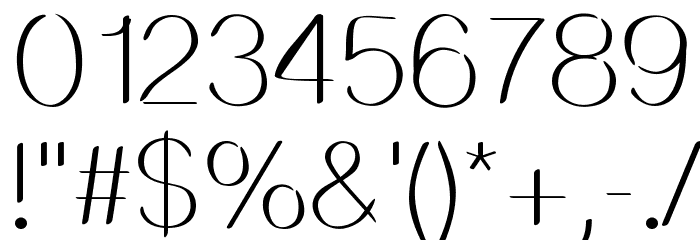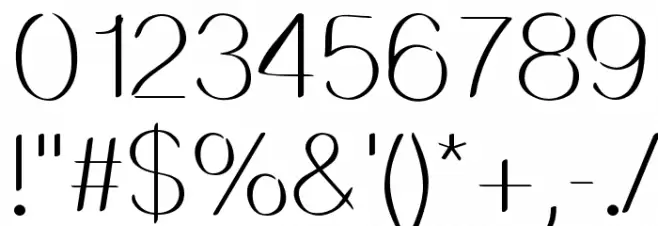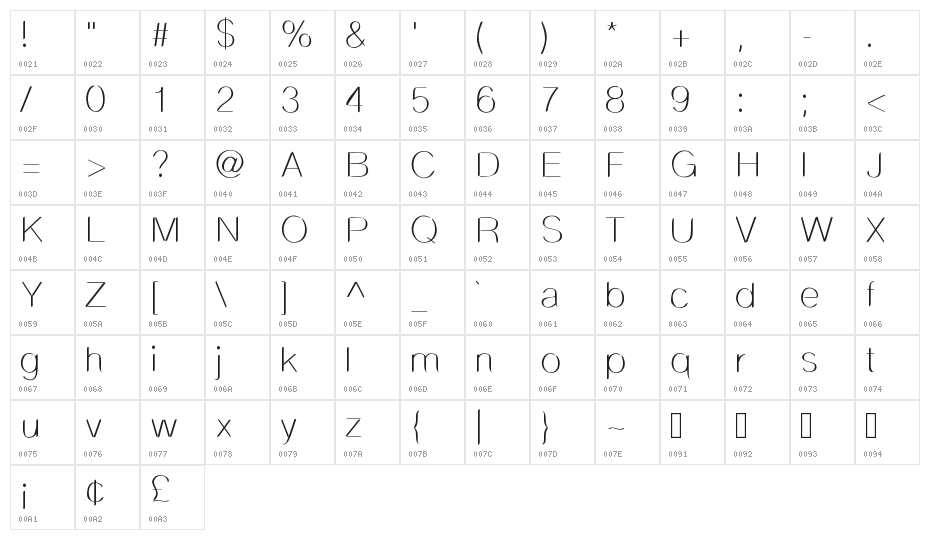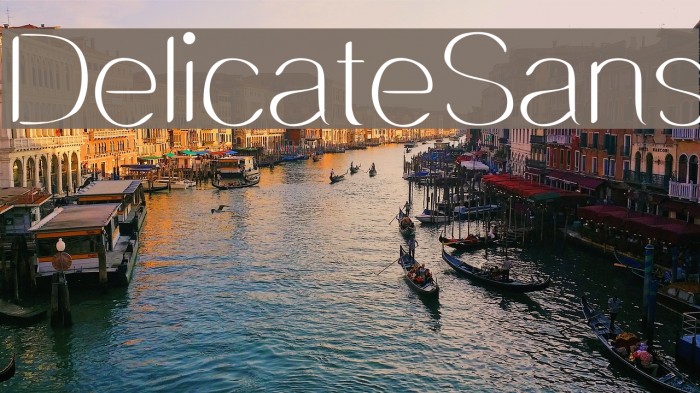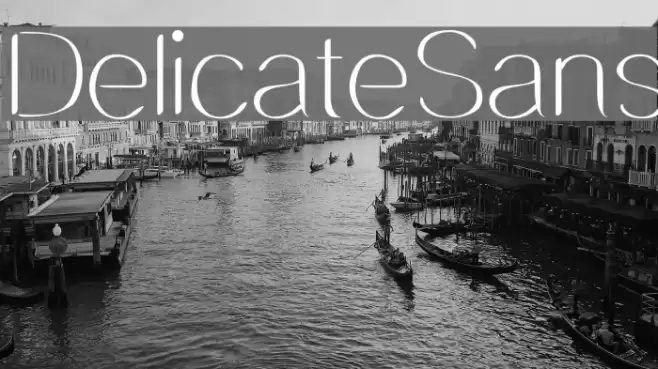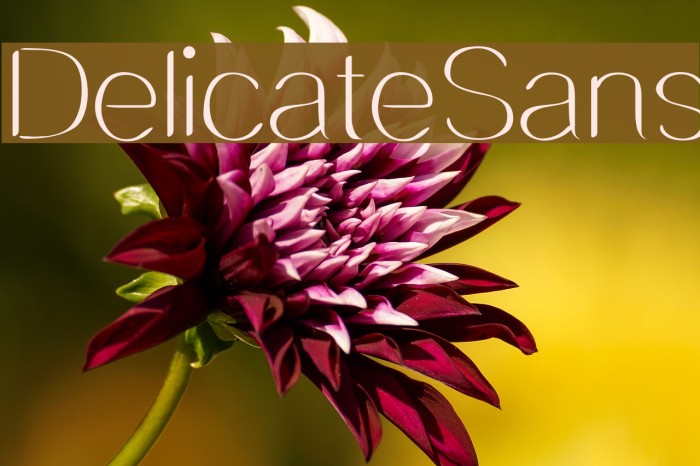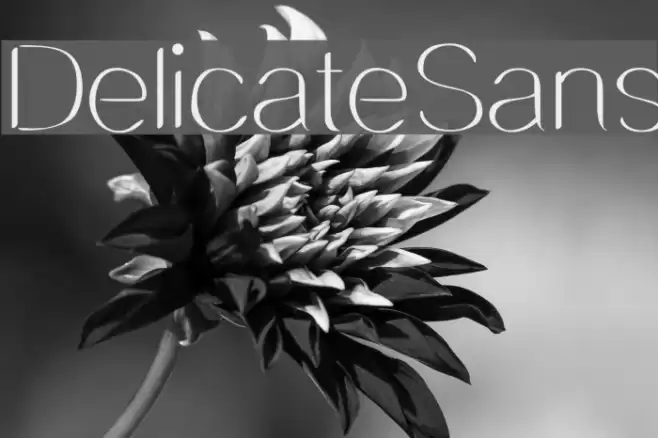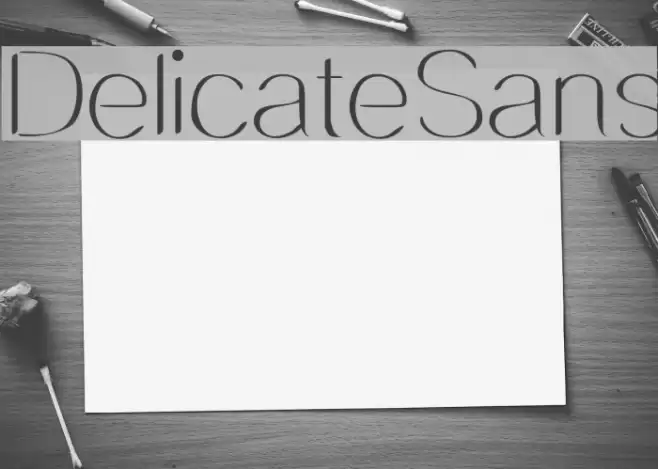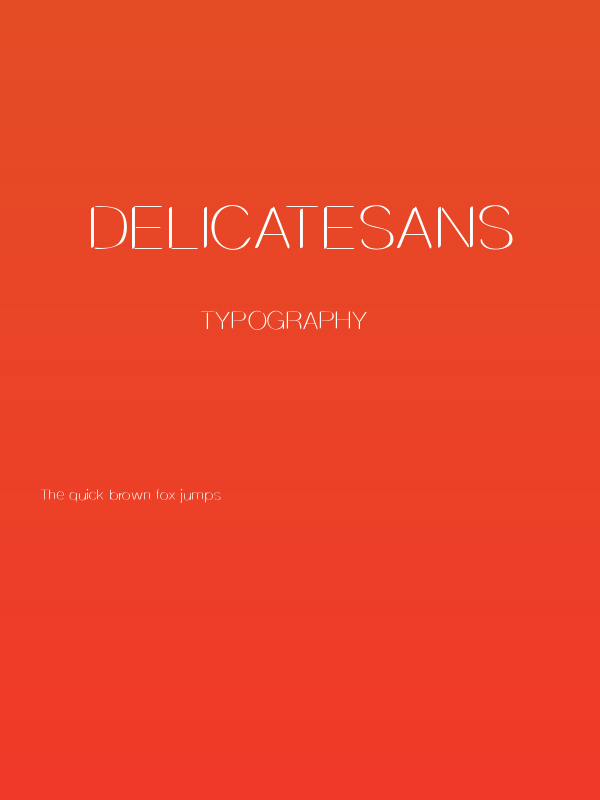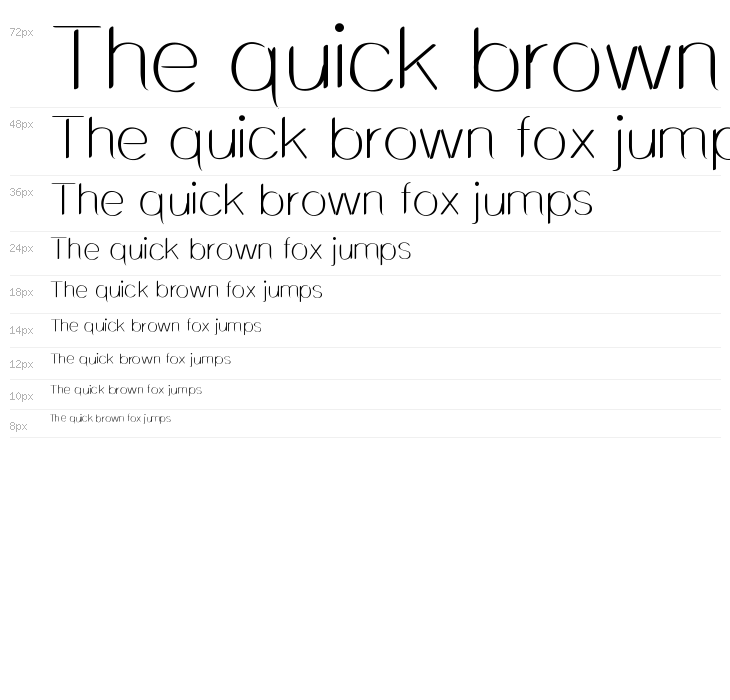
DelicateSans Font
DelicateSans Description
This font exudes a modern and minimalist aesthetic, characterized by its thin, clean lines and geometric shapes. The uppercase letters are tall and elegant, while the lowercase letters maintain a consistent height, contributing to a harmonious appearance. The numerals are straightforward and align well with the overall design, ensuring readability. Special characters are crafted with the same attention to detail, seamlessly integrating with the alphabetic characters. The font's simplicity and clarity make it versatile for various design applications.
| Proposed Projects | Ideal for branding, editorial design, digital interfaces, and minimalist posters. |